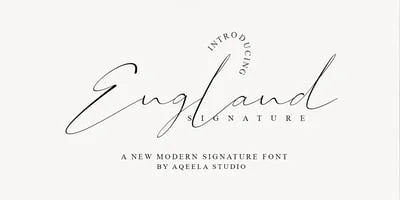
England Script
England Script Font
The England Script Font is ideal for formal British wedding invitations, royal event announcements, traditional calligraphy workshops, English manor house materials, diplomatic correspondence, luxury British brands, heritage foundation documents, and prestigious academic institutions. This elegant typeface excels in applications where formal British elegance and ceremonial distinction are essential, making it perfect for organizations that want to communicate refined sophistication and traditional English ceremonial grandeur.
What makes England Script Font exciting is its authentic English calligraphic tradition and ceremonial elegance that captures the essence of formal British penmanship and royal protocol. The font's flowing letterforms and traditional script variations create an atmosphere of distinguished formality and cultural refinement, making it ideal for institutions that want to honor English calligraphic heritage while maintaining contemporary relevance. Its graceful character design reflects the meticulous attention to detail found in traditional English manuscript traditions.
The England Script Font family typically includes regular and bold script variations, often featuring ornamental flourishes, traditional connecting ligatures, and ceremonial swashes that enhance its formal British appeal. Many versions include royal monogram elements, heraldic decorations, and specialized characters designed specifically for formal English correspondence, providing designers with authentic tools for creating distinguished British communication materials.
For designers creating projects that require formal British authenticity and ceremonial sophistication, England Script Font provides exceptional elegance. Its ability to instantly communicate English refinement and ceremonial importance makes it an invaluable choice for luxury brands, diplomatic institutions, and any project requiring typography that embodies the grace, tradition, and formal beauty of classic English calligraphic heritage and royal ceremonial traditions.